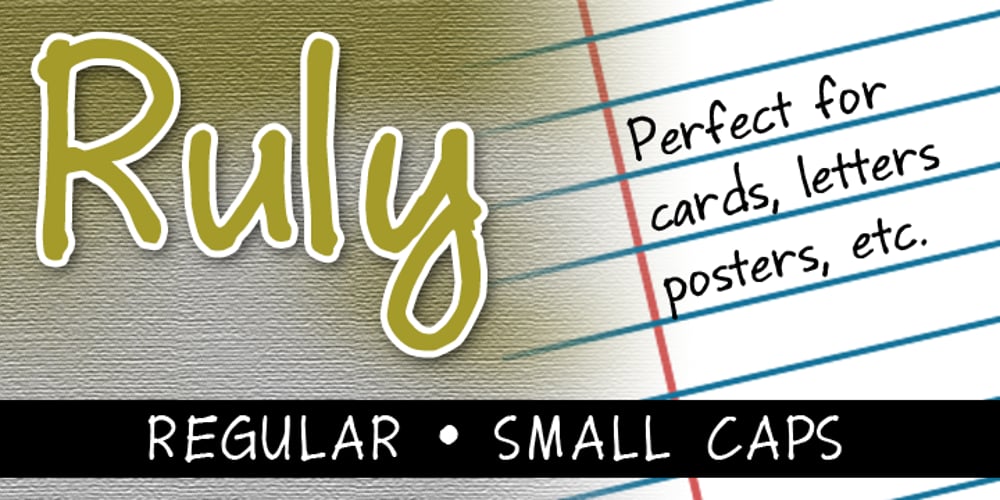
Ruly Font Family was designed by Richard Hubbard and published by Enrich Design. Ruly contains 2 styles and family package options. Ruly is my newest font creation. My roommate in college always had the coolest writing. I thought that it deserved to be a font. The font is a great choice for newsletters, cards, etc.